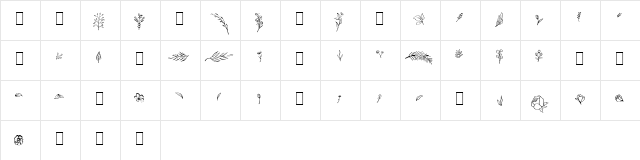
Balmond Element
| Foundry | Febri_Creative |
| Designer | Febrianto |
Design Context for Balmond Typeface
Balmond is a composed and adaptable typeface that performs quietly and consistently across a wide range of design contexts.